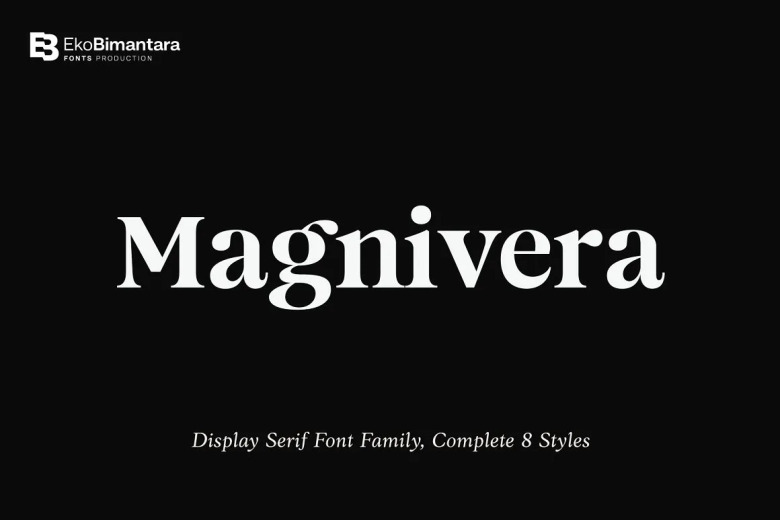
Magnivera Font Family
Magnivera Font
Magnivera is a Display Serif font family. From old style serif with a high contrast letterforms, the characteristic is flamboyant and fit to fashion the ma. The Magnivera family comprises four weights, from regular to heavy with their respective italics.
Magnivera Serif Font Family